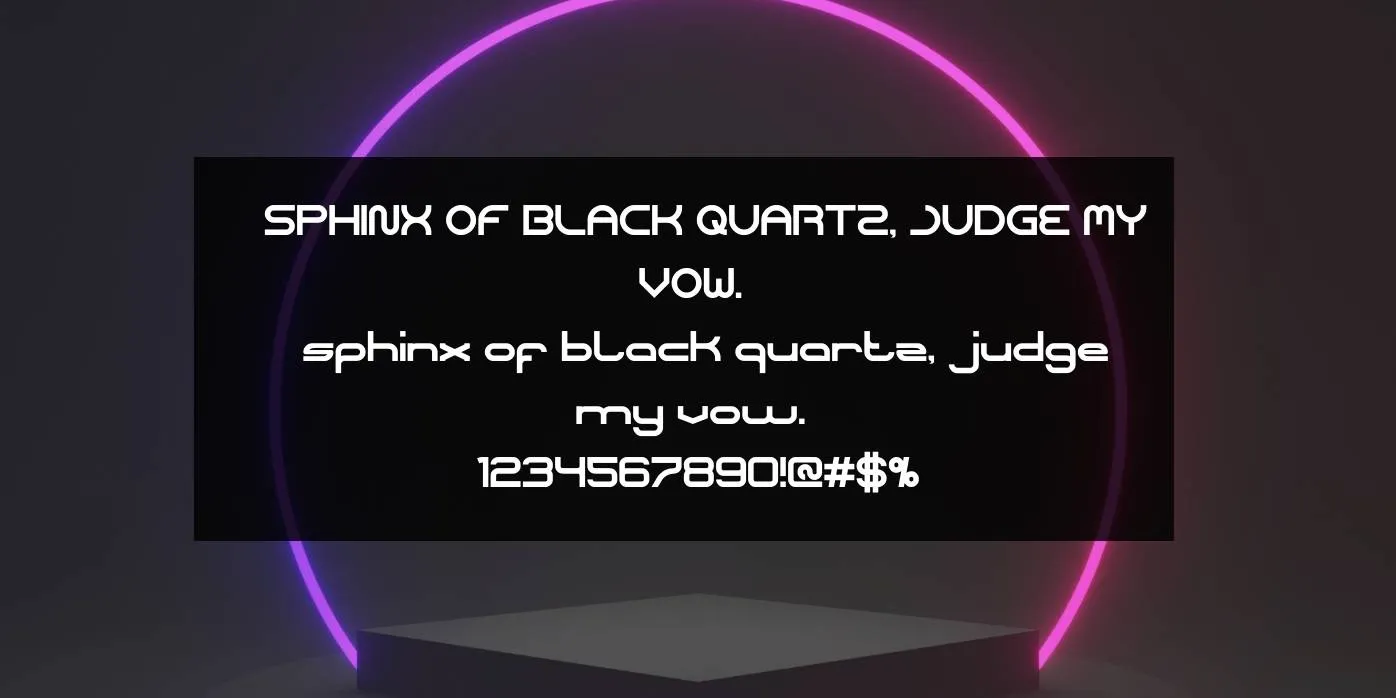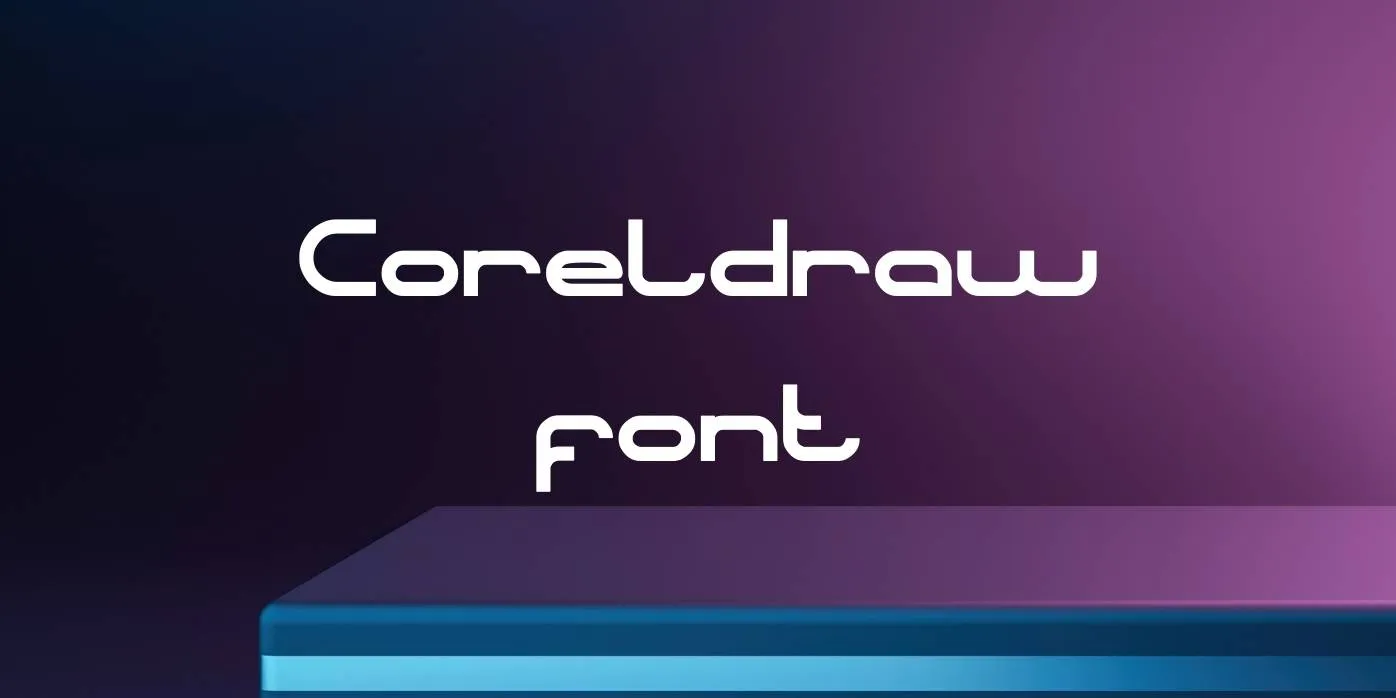
CorelDraw Font
Today, we are consulting on CorelDraw Font which belongs to the Fancy font family. This font family was designed by weknow foundries. And it was released on May 23, 2016. It is well-famed by the CSS.
The CorelDraw font family contains five weights: Light, Extra, Regular, Bold, and Black. Each weight includes oblique and non-oblique versions. The total number of fonts in the family is eight. This font family is a great choice for headlines and short paragraphs of text.